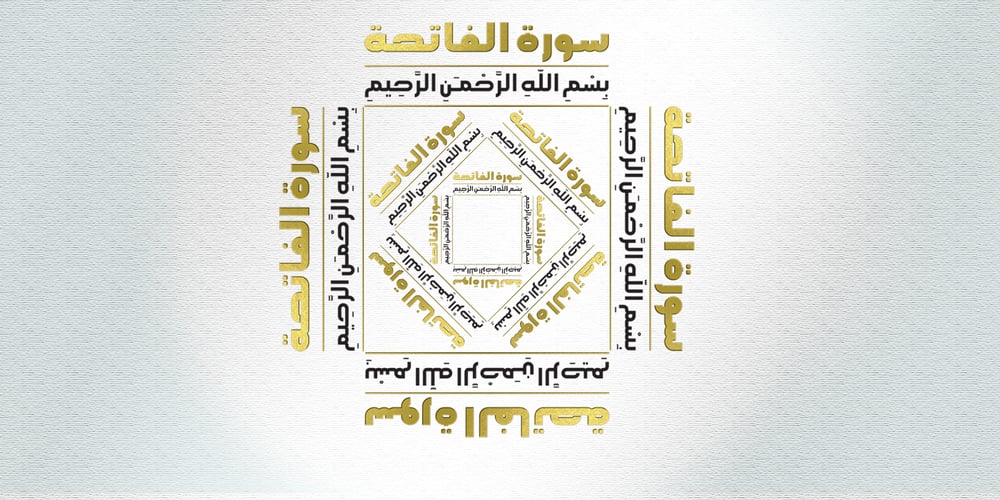
Iranica Font Family was designed by Naghi Naghashian and published by Naghi Naghachian. Iranica contains 6 styles and family package options. Iranica is a new creation of Naghi Naghashian. It is extremely legible even in very small size. “Iranica” is reminiscence to my birthplace and my cultural root. Iranica is a modern Sans Serif font family. This innovation is a contribution to modernisation of Arabic typography, gives the font design of Arabic letters real typographic arrangement und provides more typographic flexibility. Iranica supports Arabic, Persian and Urdu. The highest degree of calligraphic grace and the clarity of geometric typography. This typeface offers a fine balance between calligraphic tradition and the Roman aesthetic common in Latin typography. It also includes proportional and tabular numerals for the supported languages. Iranica design fulfills the following needs: A. Explicitly crafted for use in electronic media fulfills the demands of electronic communication. B. Suitability for multiple applications. Gives the widest potential acceptability. C. Extreme legibility not only in small sizes, but also when the type is filtered or skewed, e.g., in Photoshop or Illustrator. Iranica’s simplified forms may be artificial obliqued in InDesign or Illustrator, without any loss in quality for the effected text. D. An attractive typographic image. Iranica was developed for multiple languages and writing conventions. Iranica supports Arabic, Persian and Urdu. It also includes proportional and tabular numerals for the supported languages. E. The highest degree of calligraphic grace and the clarity of geometric typography. This typeface offers a fine balance between calligraphic tradition and the Roman aesthetic common in Latin typography.